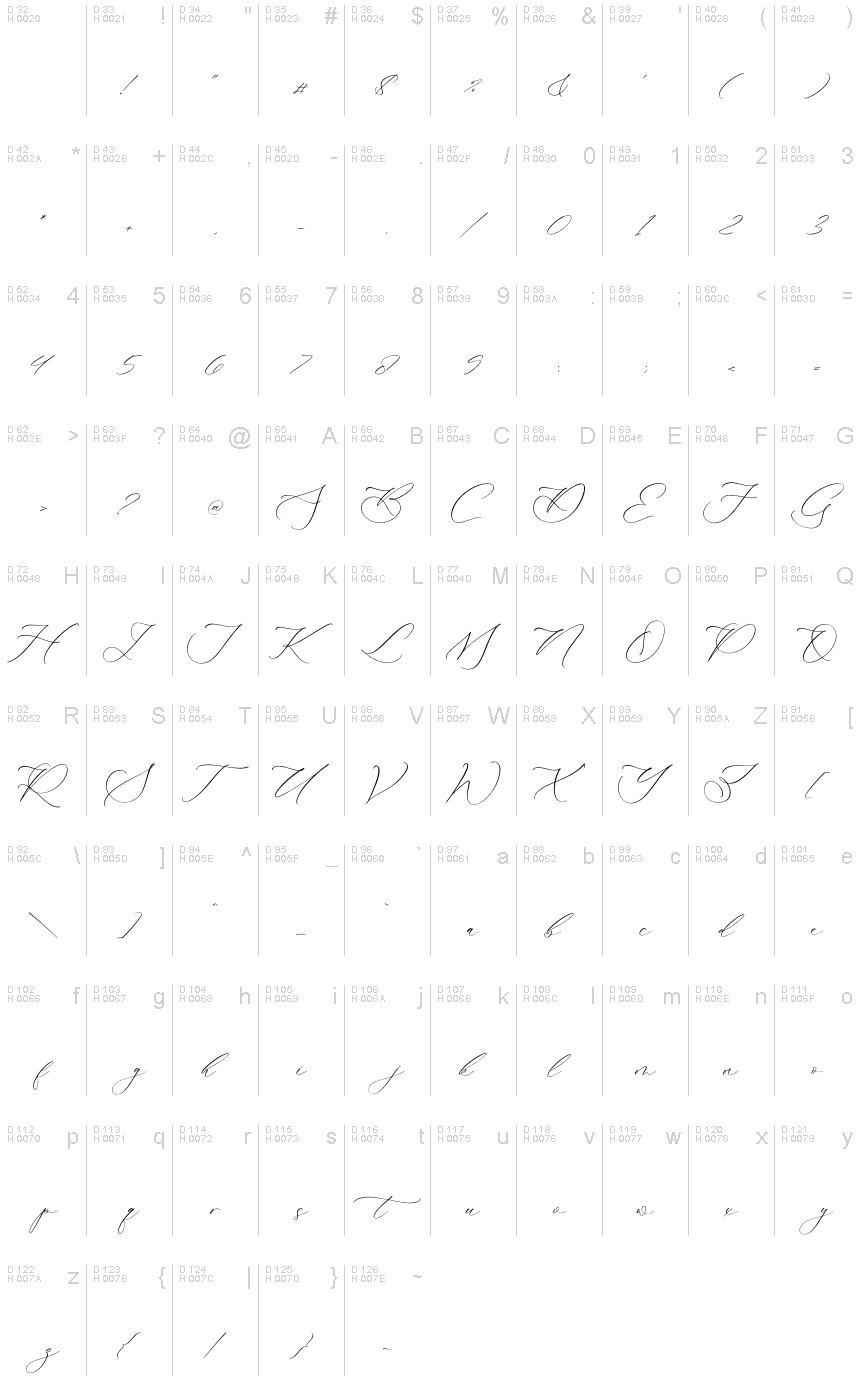
Gladioss Feather
Gladioss Feather, a captivating handwritten font designed by Storytype Studio, exudes a delicate, airy charm that effortlessly captures the essence of refined elegance. This light-weight typeface boasts a graceful, flowing script that seamlessly blends organic curves with subtle, expressive flourishes, creating a sense of timeless sophistication. The Gladioss Feather font's versatile nature and alluring aesthetic make it a compelling choice for a wide range of design applications, from high-end fashion editorials to charming wedding stationery, where its distinctive style can lend an air of sophistication and individuality.
The Gladioss Feather font's unique characteristics and aesthetic appeal make it an excellent selection for designers seeking to infuse their projects with a touch of refined elegance. Its light weight and flowing script create a sense of effortless beauty, making it a fitting choice for branding, packaging, and editorial design where a sophisticated, yet approachable aesthetic is desired.